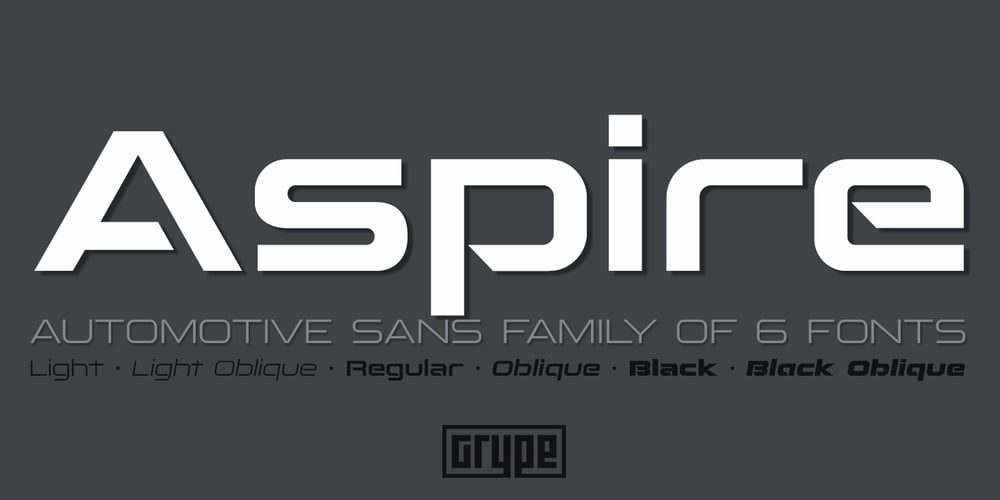
Aspire Font Family was designed by Jim Lyles, Brian J. Bonislawsky and published by Grype. Aspire contains 6 styles and family package options. Geometric/Technical style logotypes have been developed for car chrome labels since the early 1980’s. The styles are loaded with inspiration for great font families, but surprisingly, many of these sleek logotypes are lacking an expansive family to enhance and express their brand in a richer sense, becoming true brand workhorses. The Aspire family finds its origin of inspiration in the ACURA automotive company logo, and from there expands to an 6 font family of weights & oblique styles. Aspire pays homage the techno display styling of the inspiration logotype, further evolving beyond its brand inspired origin to give birth to a font family that pulls on modern and historical styles. It adopts a sturdy yet approachable style with its uniform stroke forms and curves, and goes on to include a lowercase, numerals, and a comprehensive range of weights, creating a straightforward, uncompromising collection of typefaces that lend a solid foundation and a broad range of expression for designers. Here’s what’s included with the Aspire Family bundle: 477 glyphs per style – including Capitals, Lowercase, Numerals, Punctuation and an extensive character set that covers multilingual support of latin based languages. (see the 6th graphic for a preview of the characters included) Stylistic Alternates – alternate characters that remove the angled stencil cuts for a more standardized text look. 3 weights in the family: Light, Regular, & Black. 3 obliques in the family, one for each weight: Light, Regular, & Black. Fonts are available in TTF & OTF formats. The TTF format is the standard go to for most users, although the OTF and TTF function exactly the same. Here’s why the Aspire Family is for you: – You’re in need of automotive sans font family with a range of weights and obliques. – You’re love that ACURA letter styling, and want to design anything within that genre. – You’re looking for an alternative to Eurostile with more stylized letterforms. – You’re looking for a clean techno typeface for your starship console labelling. – You just like to collect quality fonts to add to your design arsenal.